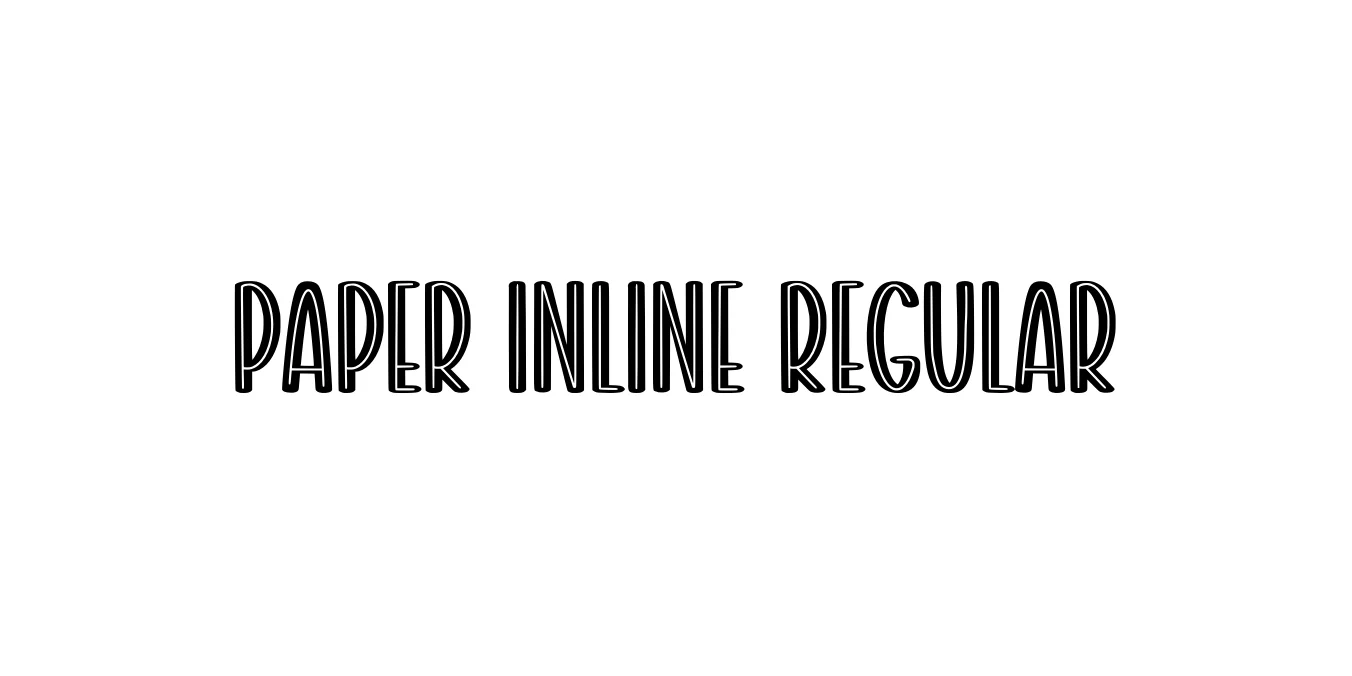
Paper Inline Regular
Designed by Unknown Designer
| Category | Display / Decorative |
Paper Inline Regular is a creative display typeface designed to mimic the aesthetic of paper-cut letters or hand-crafted signage. The font features a distinctive inline stroke that provides a sense of depth and three-dimensionality, making it stand out against flat backgrounds. Its slightly irregular edges give it a tactile, DIY feel that is perfect for projects requiring a human touch.
This typeface was developed to serve the needs of designers looking for a balance between playful whimsy and structural clarity. Because of its bold presence and unique internal detail, Paper Inline Regular remains highly legible while adding an artistic flair to headlines, making it a versatile choice for both digital and print media.
Paper Inline Regular Best Uses
Ideal for logo design for creative agencies and boutique brands.
Perfect for creating eye-catching titles for events and festivals.
Great for high-impact Instagram graphics and YouTube thumbnails.
Commonly used for scrapbooking, DIY projects, and cutting machine designs.